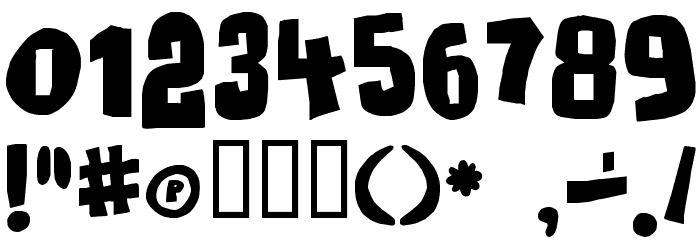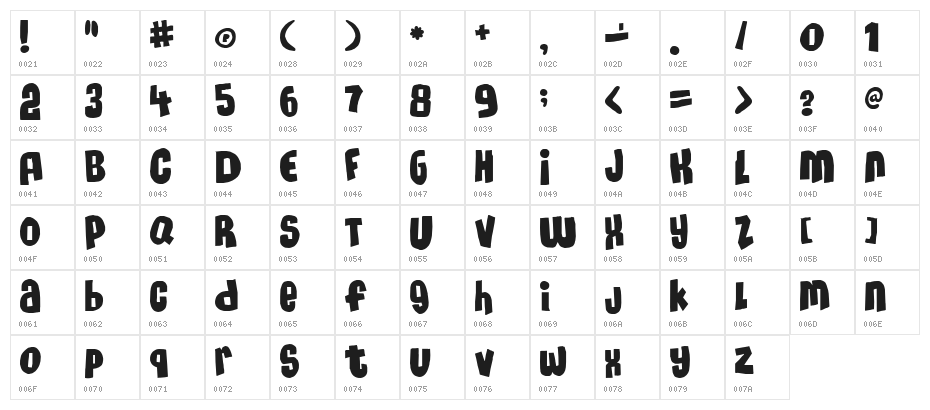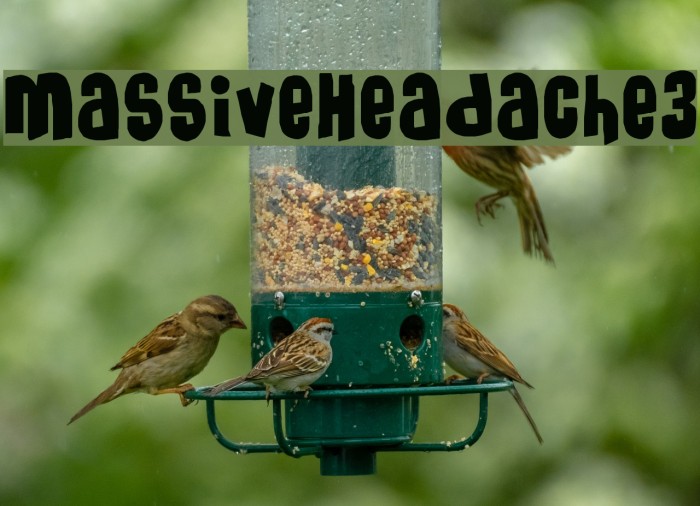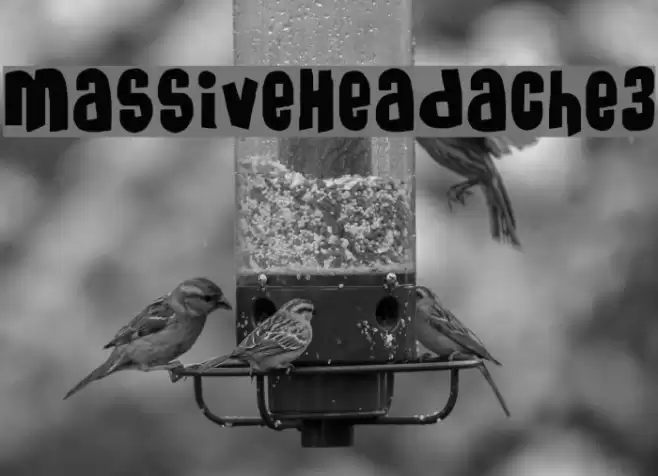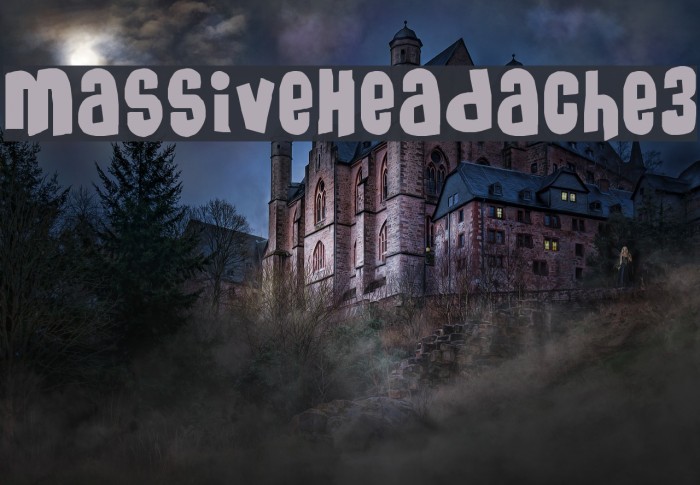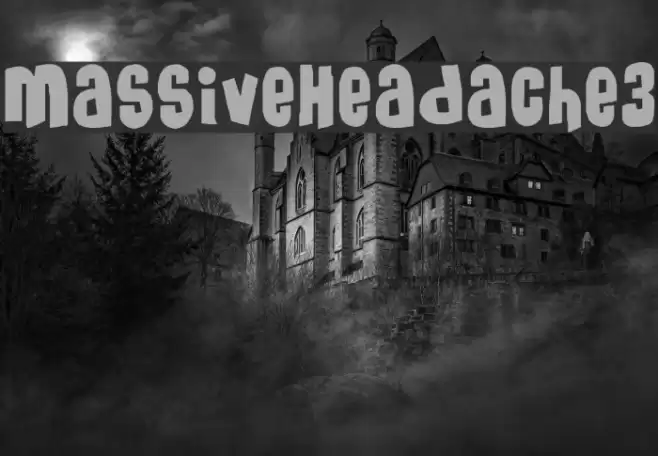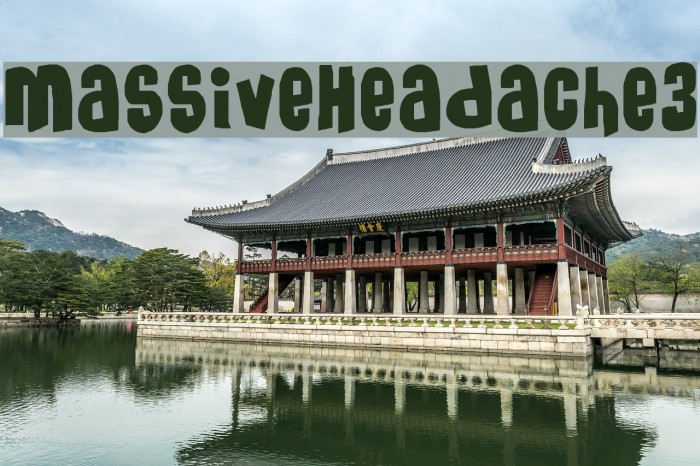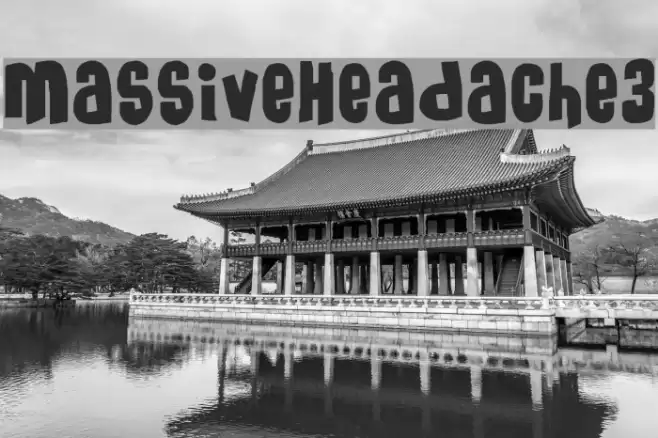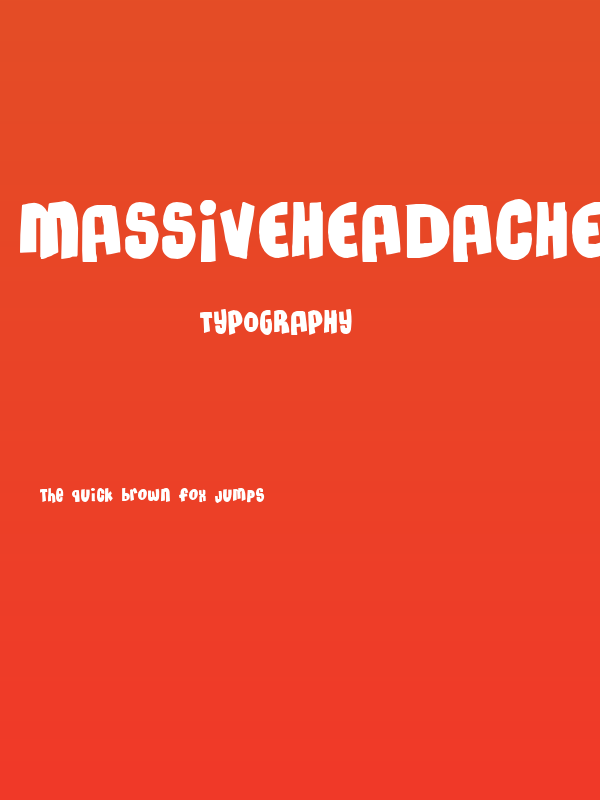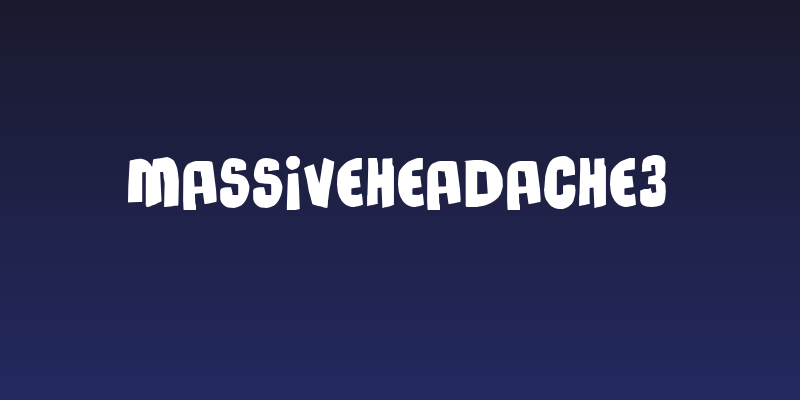
MassiveHeadache3 Font
MassiveHeadache3 Description
This font features a bold and playful design with exaggerated, chunky letterforms that convey a sense of fun and whimsy. The characters are highly stylized, with uneven strokes and a slightly irregular baseline, giving it a hand-drawn appearance. The uppercase and lowercase letters maintain a consistent style, with rounded edges and a strong presence. Numbers and special characters follow the same bold and quirky aesthetic, making the font suitable for eye-catching designs. The overall look is dynamic and energetic, perfect for projects that require a lively and informal touch.
| Proposed Projects | Ideal for children's books, comic strips, playful branding, and event posters. |